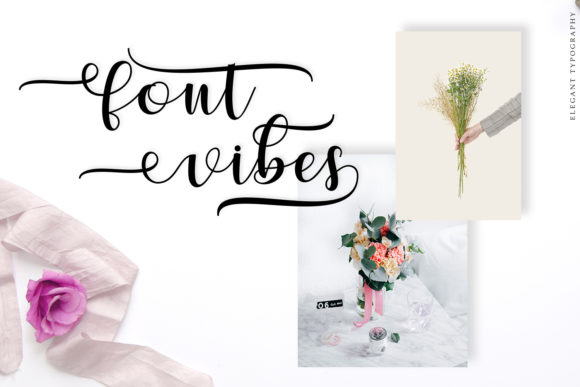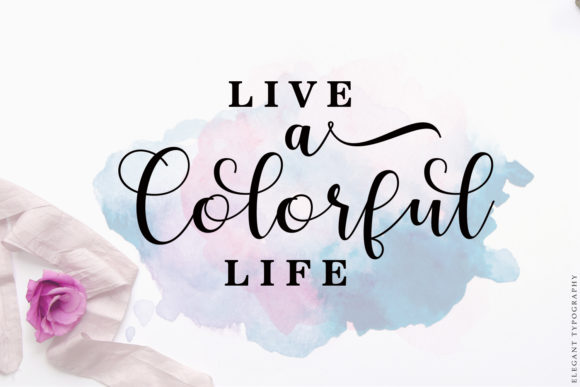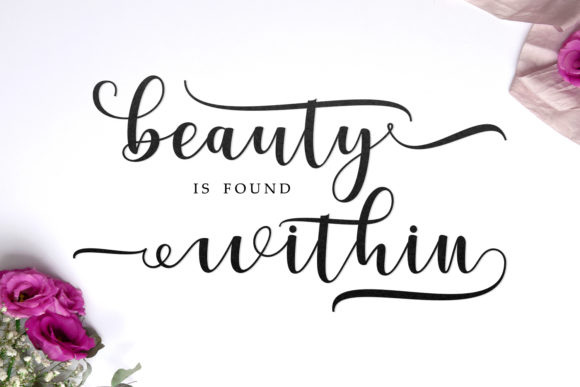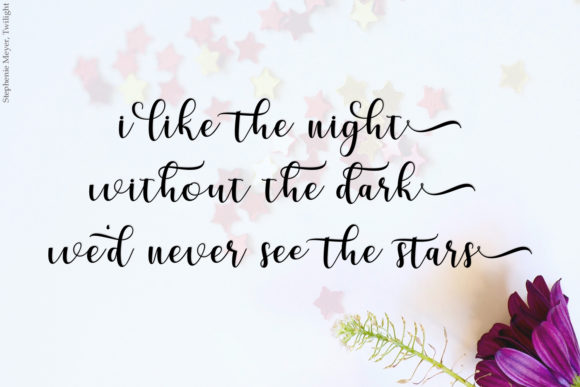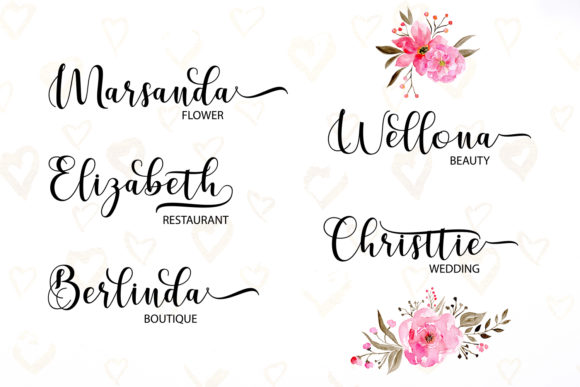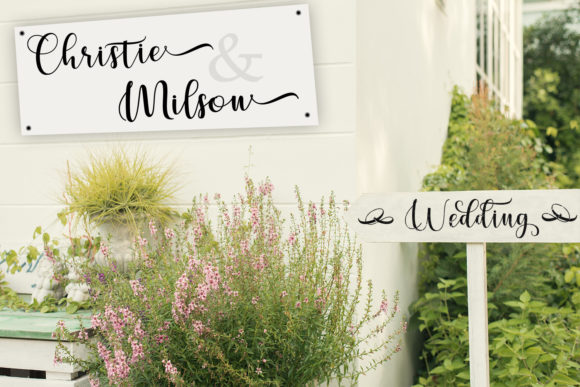
Cerilleta Script Font: Elevate Your Designs with Elegance and Sophistication
The Cerilleta script font is an exquisite addition to any design project, offering a touch of handmade elegance and refinement. This beautiful calligraphy script is perfect for designers and crafters looking to add a level of sophistication and luxury to their work. With its unique, flowing lines and intricate details, Cerilleta is sure to make your designs stand out from the crowd.
The Beauty of Handmade Calligraphy
What sets Cerilleta apart from other script fonts is its handmade nature. Each letter has been carefully crafted to create a truly unique and organic feel. The font’s imperfections and quirks give it a personal touch, making it perfect for designs that require a level of personality and character. Whether you’re working on a branding project, wedding invitation, or packaging design, Cerilleta’s handmade charm is sure to impress.
Upscale and Chic: The Perfect Addition to Your Designs
The Cerilleta script font is designed to give your designs an upscale and chic look. Its elegant lines and refined details make it perfect for high-end branding, luxury packaging, and sophisticated marketing materials. Whether you’re working with a modern or traditional aesthetic, Cerilleta’s versatility ensures it will complement your design style with ease.
Cerilleta’s flexibility and range make it an excellent choice for a wide range of design applications. Some ideas to get you started include:
- Wedding and event invitations: Add a touch of romance and sophistication to your wedding or event invitations with Cerilleta’s beautiful script.
- Luxury branding and packaging: Elevate your brand’s image with Cerilleta’s high-end feel and refined details.
- Stationery and greeting cards: Create beautiful, one-of-a-kind stationery and greeting cards with Cerilleta’s unique and elegant script.
- Signage and display graphics: Make a statement with Cerilleta’s bold and eye-catching script, perfect for signage and display graphics.
Tips for Working with Cerilleta Script Font
To get the most out of Cerilleta, here are a few tips to keep in mind:
- Use it sparingly: Cerilleta’s elegance and sophistication can be overwhelming if overused. Balance it with simpler fonts to create visual interest and hierarchy.
- Experiment with colors and textures: Cerilleta’s beauty shines through when paired with rich colors and textures. Don’t be afraid to experiment and find the perfect combination for your design.
- Pay attention to spacing and kerning: As with any script font, it’s essential to pay attention to spacing and kerning to ensure Cerilleta looks its best.
The Cerilleta script font is a stunning addition to any design project, offering a level of elegance and sophistication that’s hard to find elsewhere. Its handmade nature, unique character, and versatility make it perfect for designers and crafters looking to elevate their work. Whether you’re working on a high-end branding project or a personal craft, Cerilleta is sure to bring a touch of luxury and refinement to your designs.